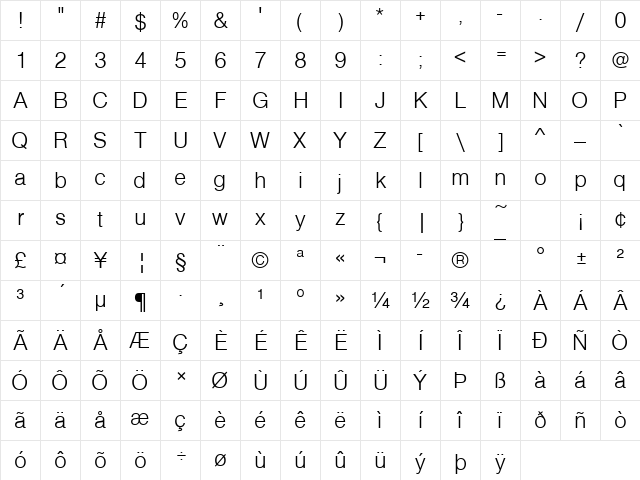
NimbusSanDLig Regular
Design Context for NimbusSanDLig
NimbusSanDLig is a composed and adaptable typeface that performs quietly and consistently across a wide range of design contexts.
Pro Tip: Use NimbusSanDLig in both headline and body roles to test its range before committing to a single application.